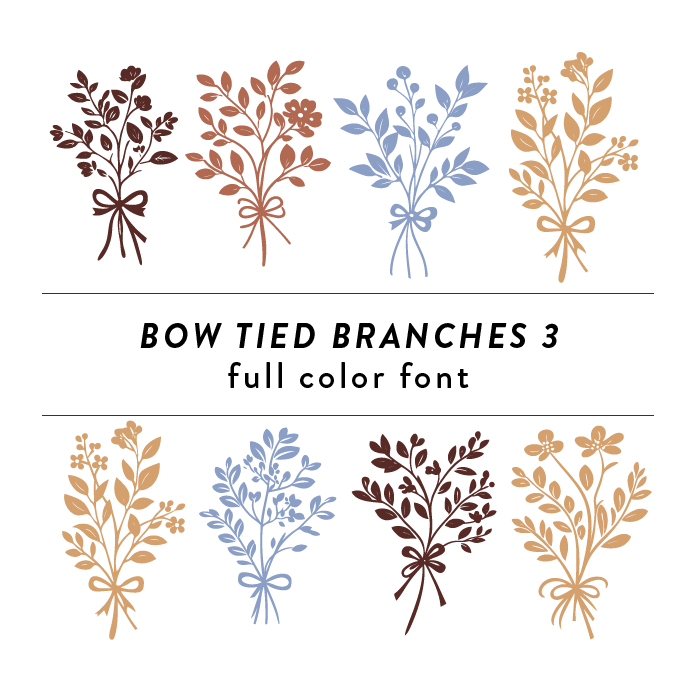
Bow Tied Branches 3 Full Color Font is a whimsical and elegant font design featuring intricate branches adorned with delicate flowers, perfect for wedding invitations and engagement announcements. Its unique style adds a touch of romance and sophistication to any project.